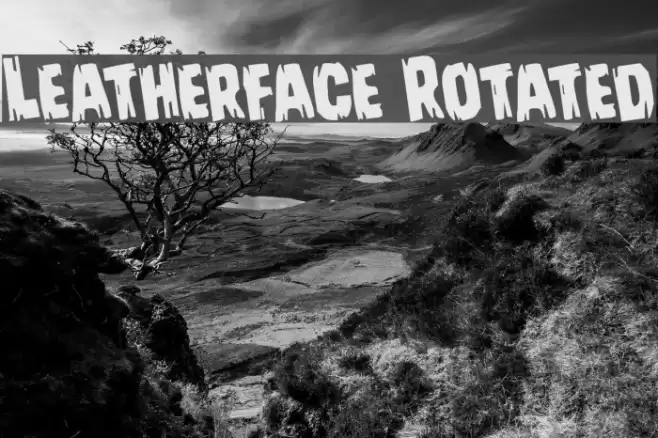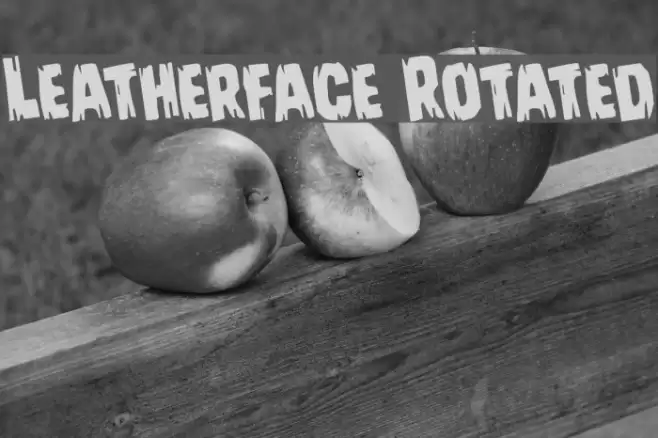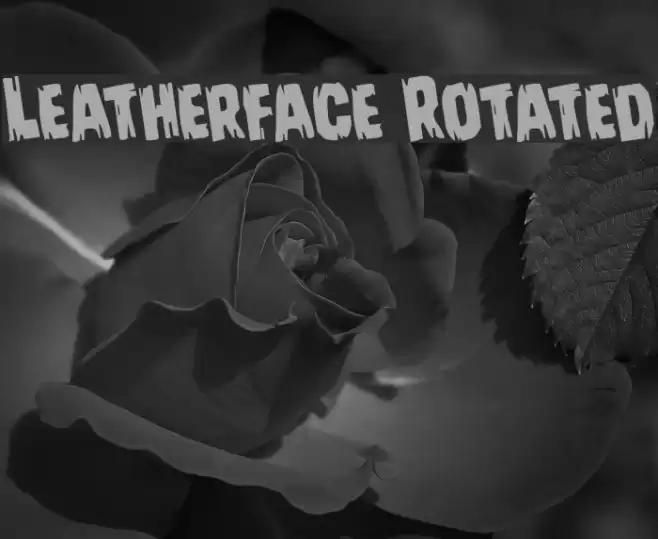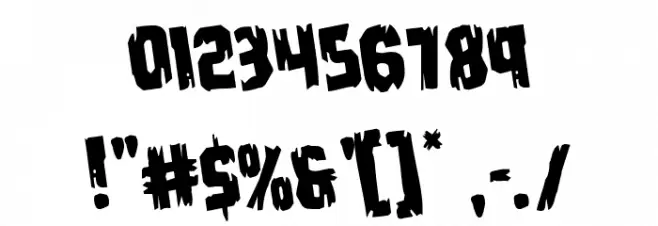
Leatherface Rotated Font
Leatherface Rotated Description
This font features a bold, jagged style with irregular edges, giving it a distressed and rugged appearance. The characters are heavily stylized, with a sense of movement and energy, making them stand out dramatically. The uppercase and lowercase letters maintain a consistent design, with sharp angles and a slightly chaotic feel. The numbers and special characters follow the same aesthetic, ensuring a cohesive look across all glyphs. This font is ideal for projects that require a strong, impactful visual presence, such as horror-themed designs or edgy, modern branding.
A bold, jagged font with a distressed, energetic style from Uncategorized fonts.
- Proposed Projects: Ideal for horror-themed designs, edgy branding, posters, and album covers.